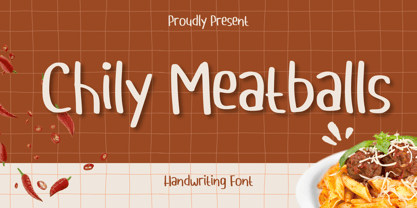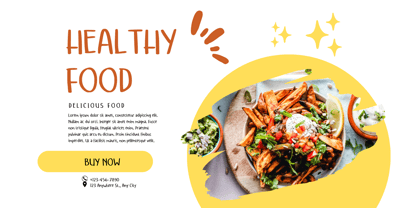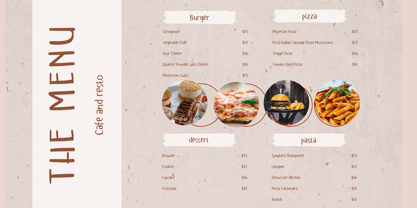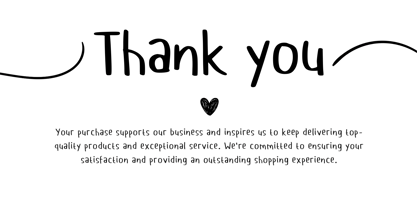
Chily Meatballs
by Aisyah
The Chily Meatballs Font Family was designed by Nur Aiysah Amalia and published by Aisyah. Chily Meatballs contains 1 styles.
Immerse in the charming allure of "Chlily Meatballs" font, designed for artisan crafts and innovative business designs. It's all you need for your creative endeavors, providing a unique touch to every project. This adorable font laces your work with an enchanting appeal and breathes life into your designs, ensuring your outputs are captivating and extraordinary. Enjoy the simplicity and elegance that come with using Chlily Meatballs, the font that perfectly marries style with functionality.
Designers: Nur Aiysah Amalia
Publisher: Aisyah
Foundry: Aisyah
Design Owner: Aisyah